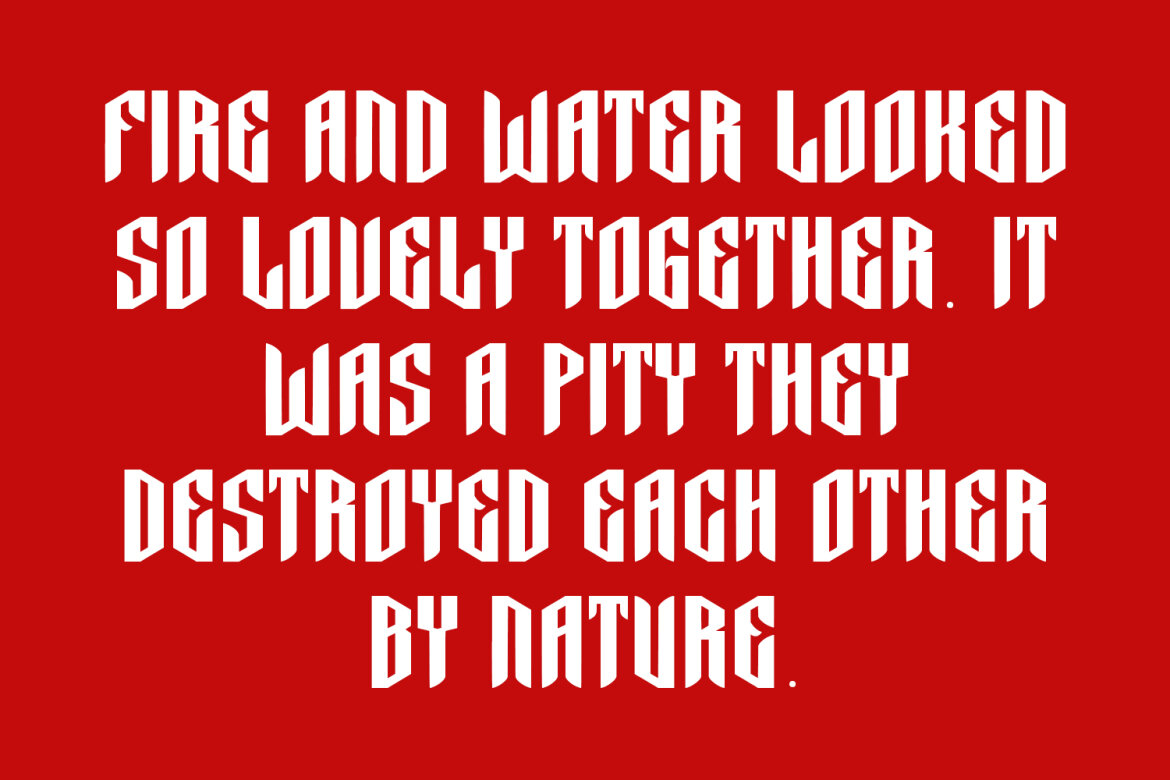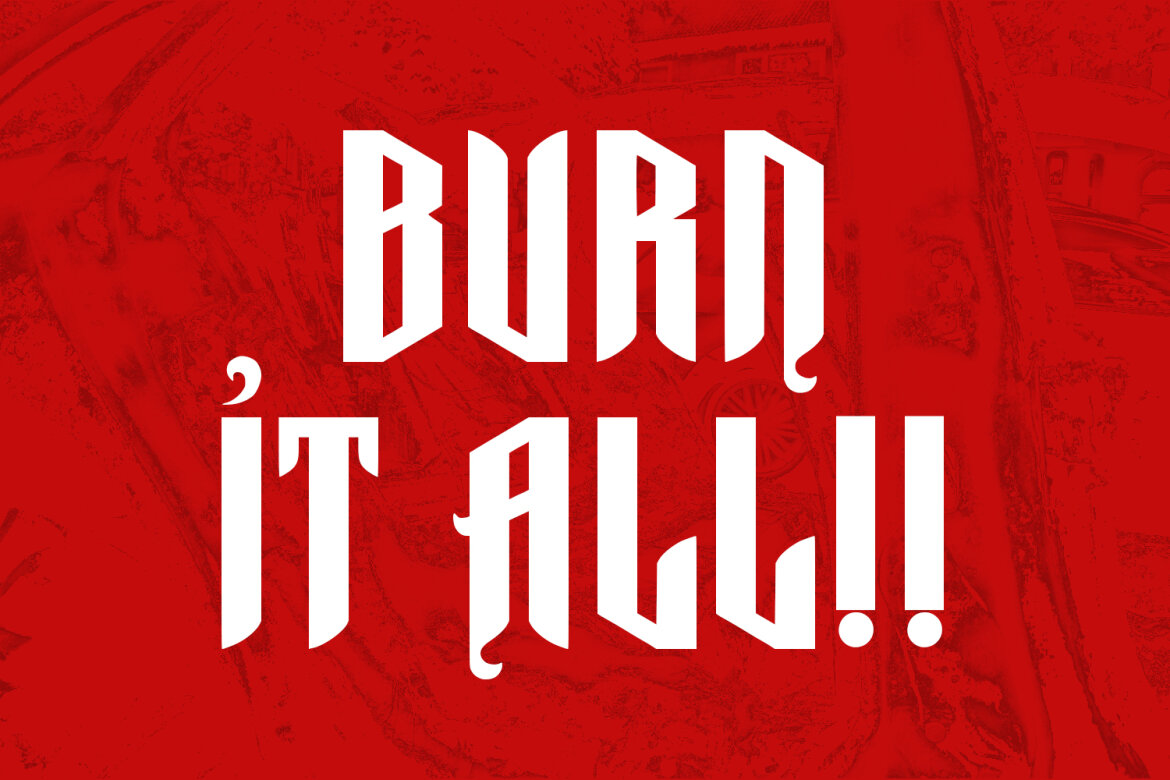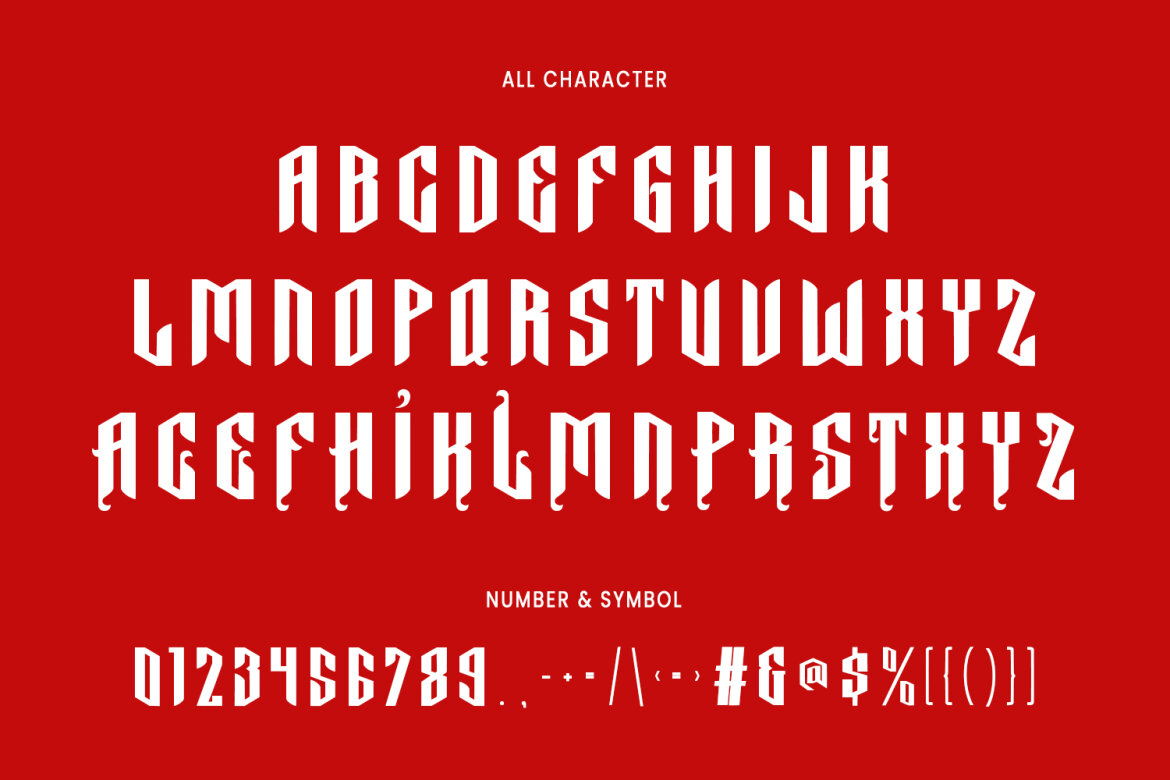
Rexty Blackletter FREE Typeface
Rexty blackletter display typeface. Heavy stroke, fun character with a bit of ligatures. To give you an extra creative work. Rexty blackletter display typeface support multilingual more than 100+ language. This font is good for logo design, Social media, Movie Titles, Books Titles, a short text even a long text letter and good for your secondary text font with script or serif. Make a stunning work with Rexty blackletter display typeface.